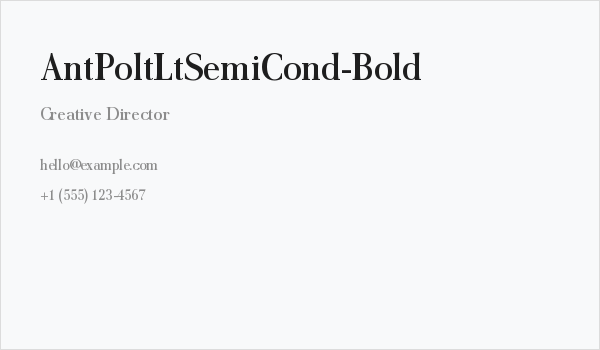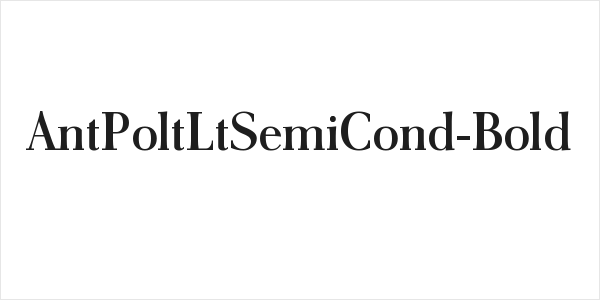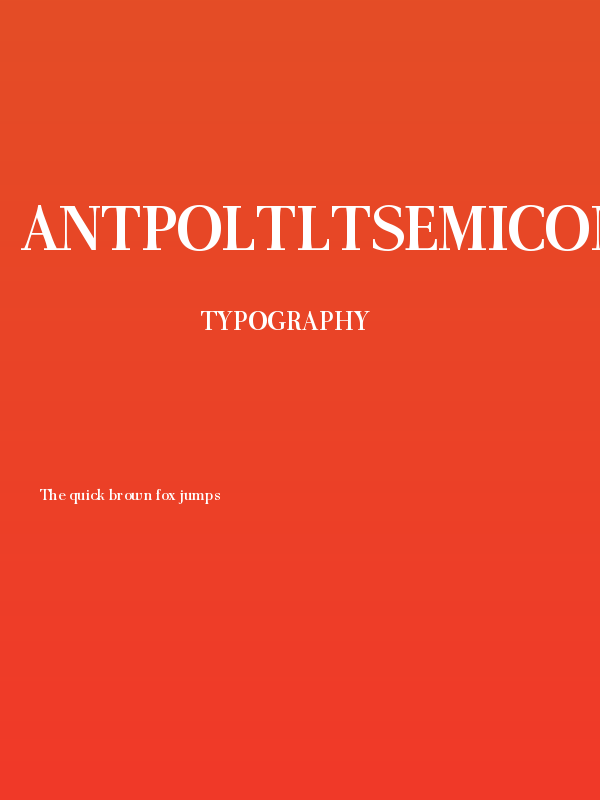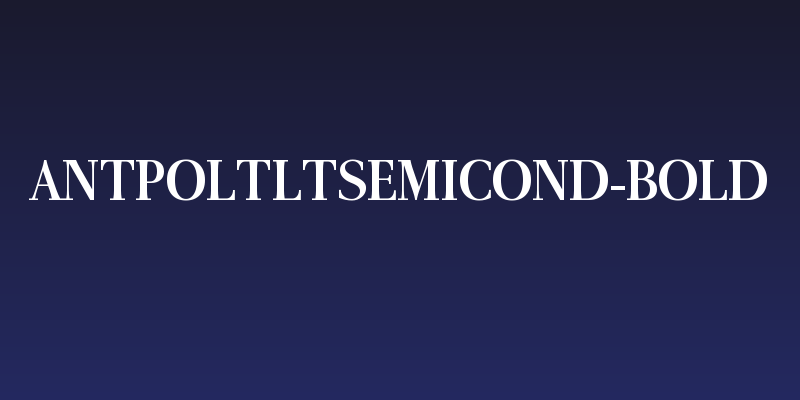
AntPoltLtSemiCond-Bold Font
AntPoltLtSemiCond-Bold Description
This font features a classic serif style with a bold weight, providing a strong and authoritative presence. The characters are semi-condensed, allowing for efficient use of space while maintaining readability. The uppercase letters exhibit a traditional elegance, while the lowercase letters offer a smooth and consistent flow. The numerals are clear and well-proportioned, making them suitable for both text and numerical data. Special characters are distinct and harmonize well with the overall design. The font's contrast in stroke thickness is medium, adding to its legibility and visual appeal.
| Proposed Projects | Ideal for editorial design, book covers, formal invitations, and branding projects that require a touch of sophistication. |